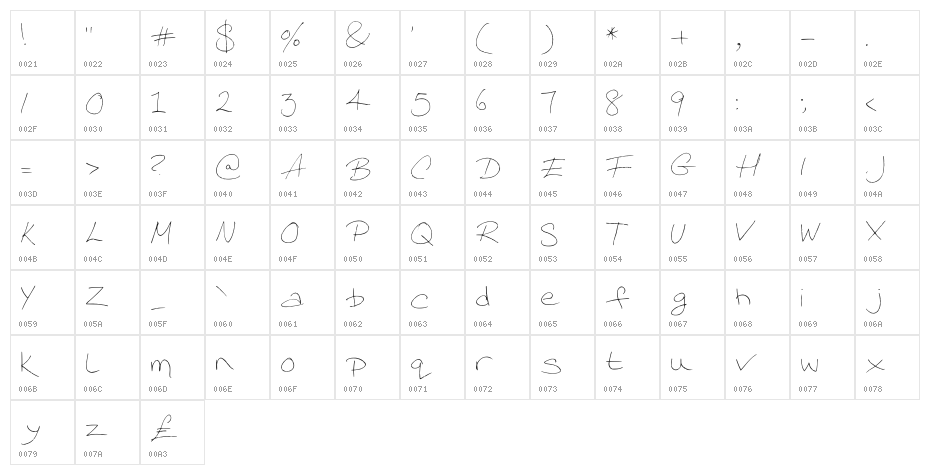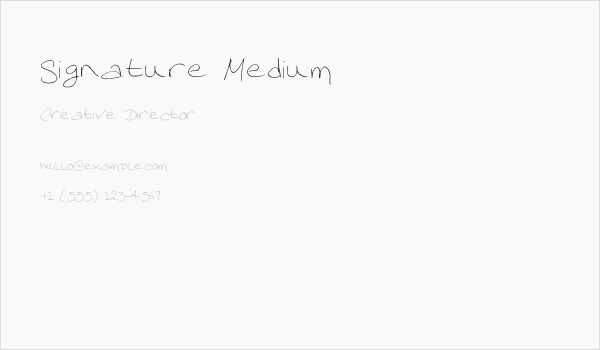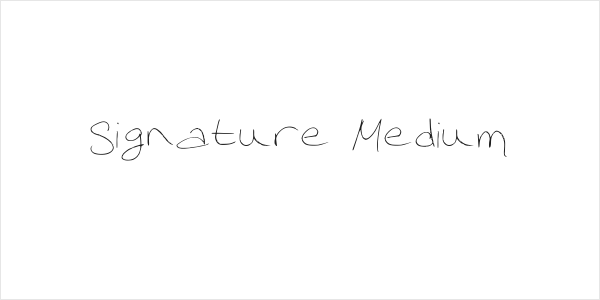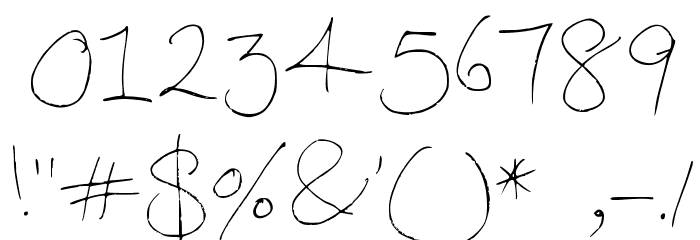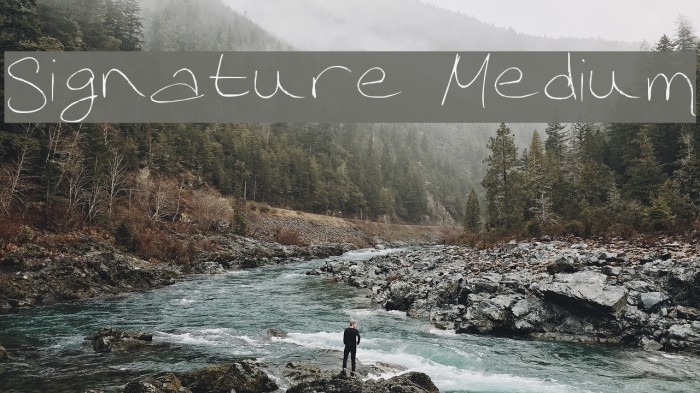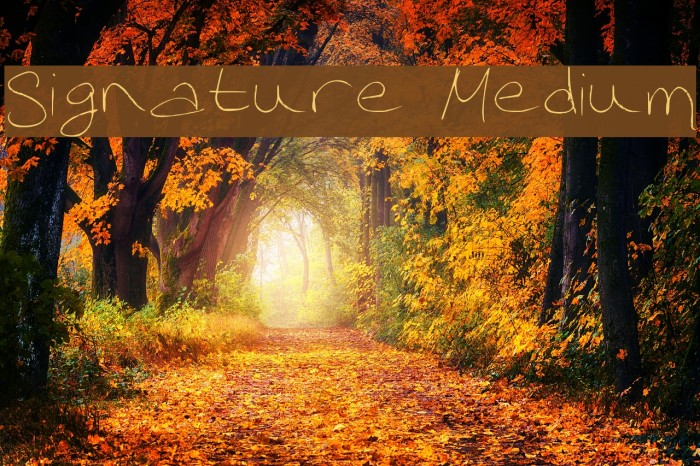
Signature Medium Font
Signature Medium Description
This font exudes a casual, handwritten style that mimics the fluidity and spontaneity of a personal signature. The letters are characterized by their smooth, flowing lines and slight slant, giving them a natural and organic appearance. The uppercase and lowercase letters maintain a consistent style, with a slight variation in height and width that adds to the authentic handwritten feel. The numerals and special characters complement the alphabet with similar fluid strokes and a touch of whimsy. This font is perfect for projects that require a personal touch, such as invitations, greeting cards, or branding materials that aim to convey warmth and approachability.
| Overall Style | Casual, Personal |
| Proposed Projects | Ideal for invitations, greeting cards, personal branding, and any project needing a personal, approachable touch. |